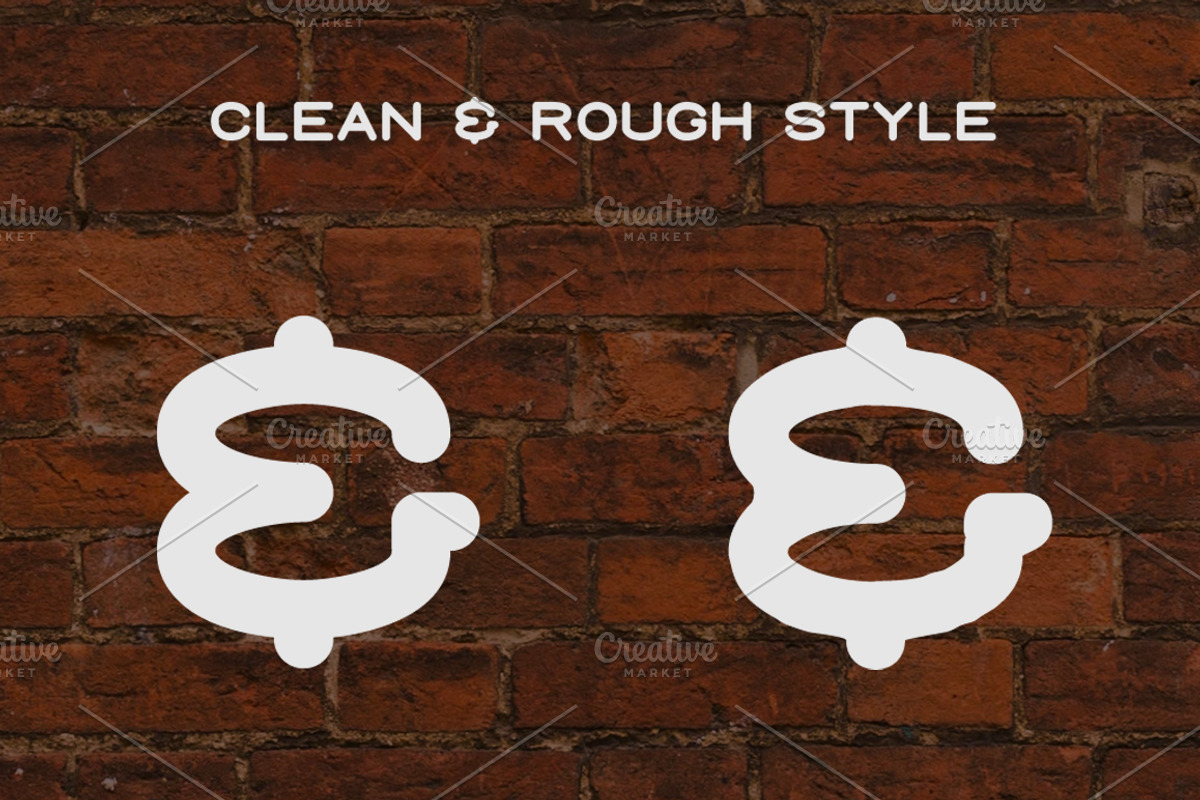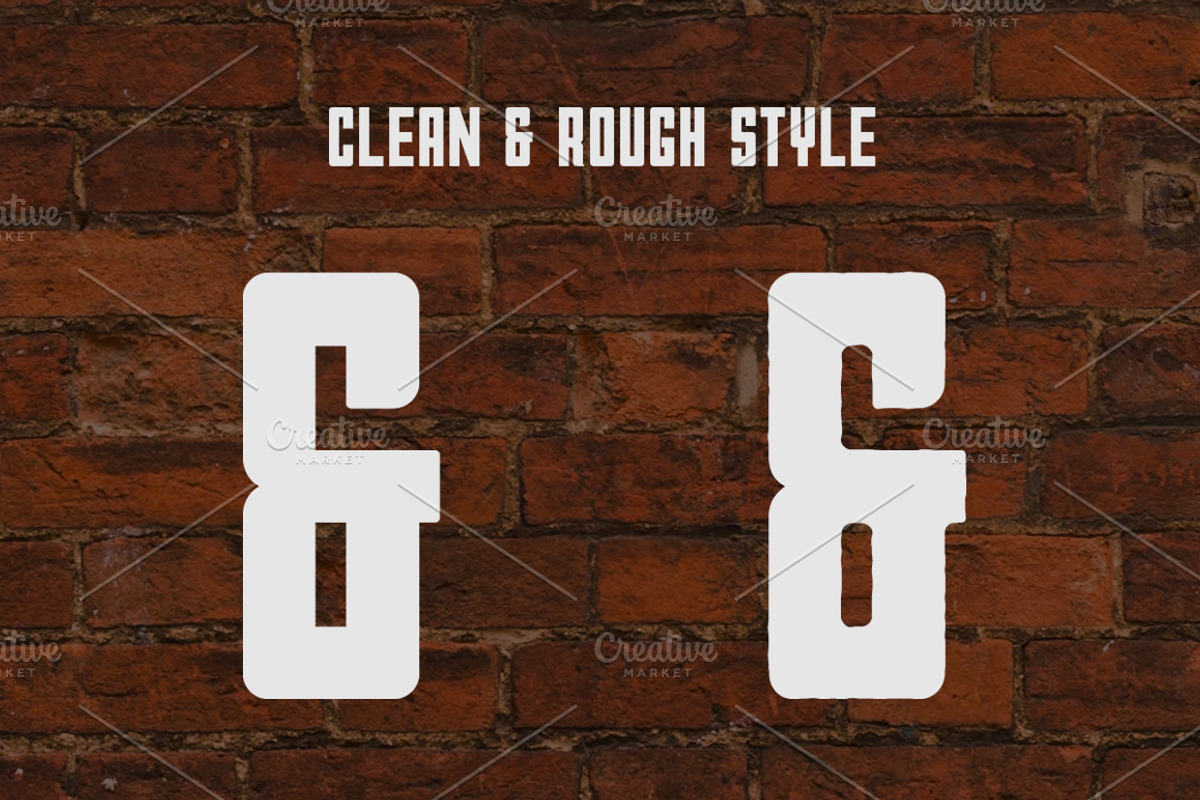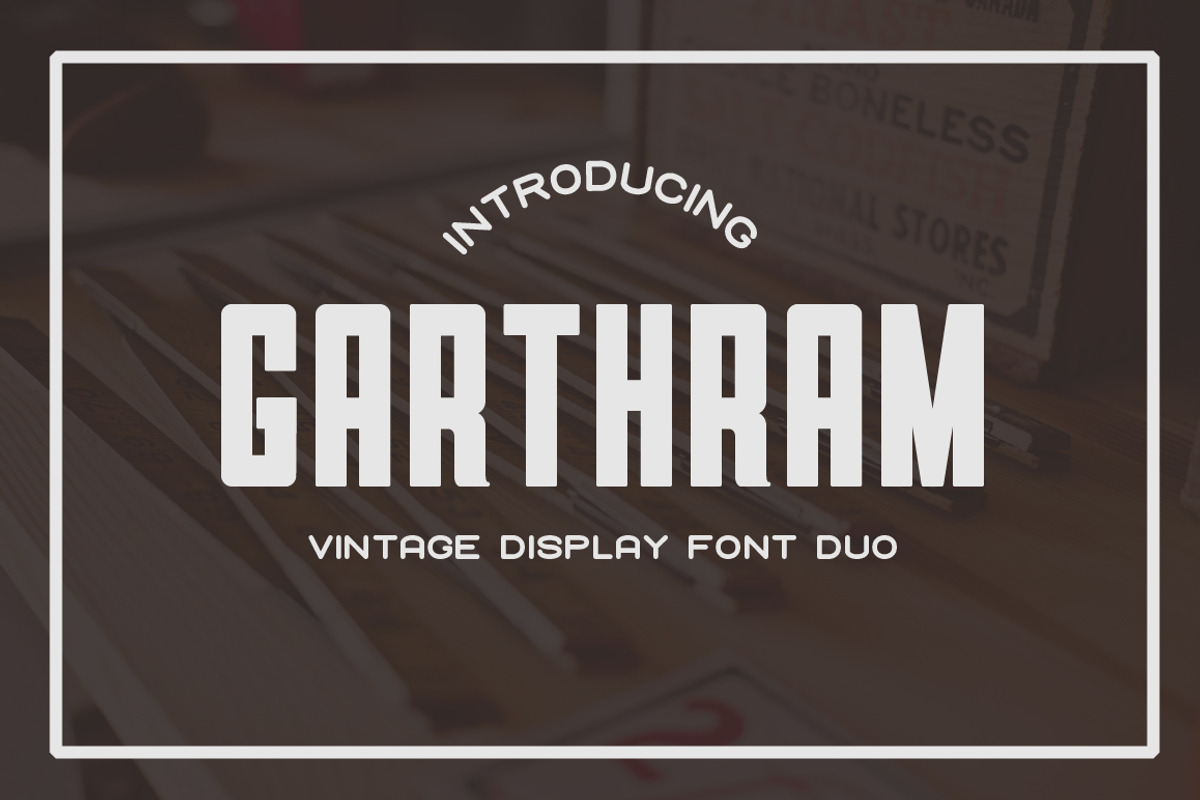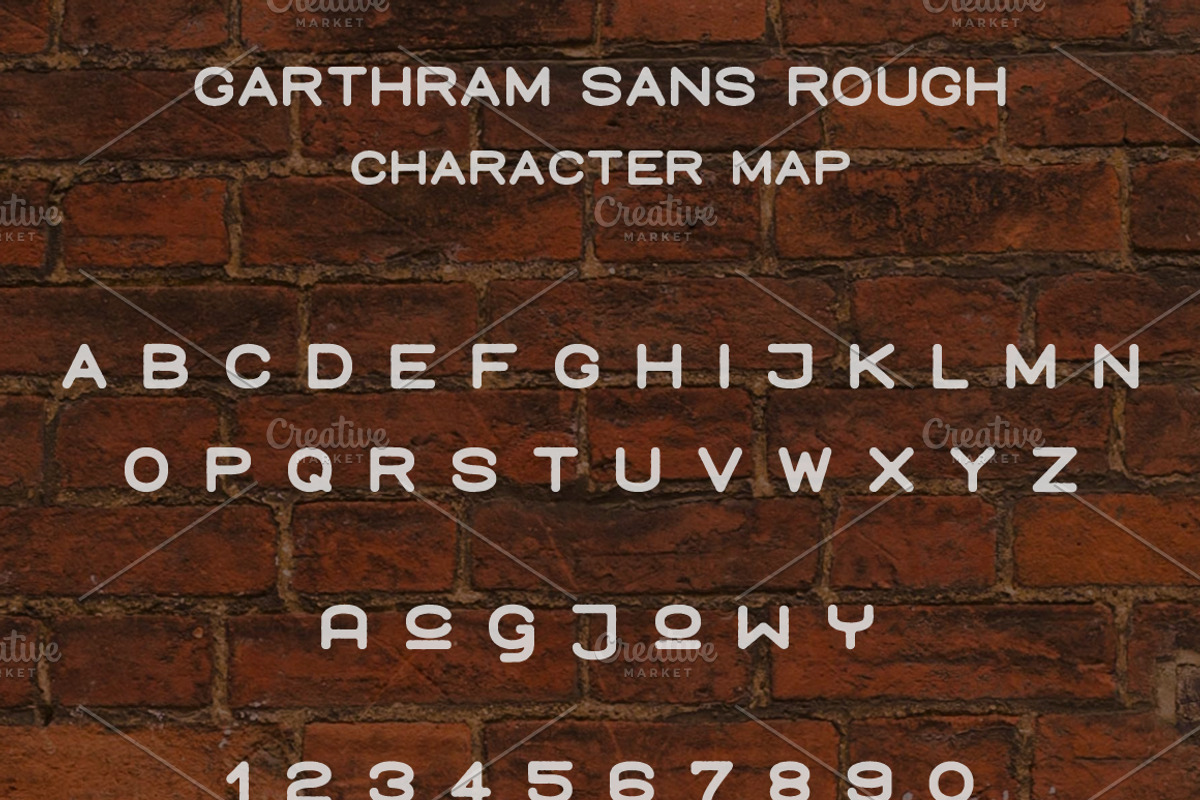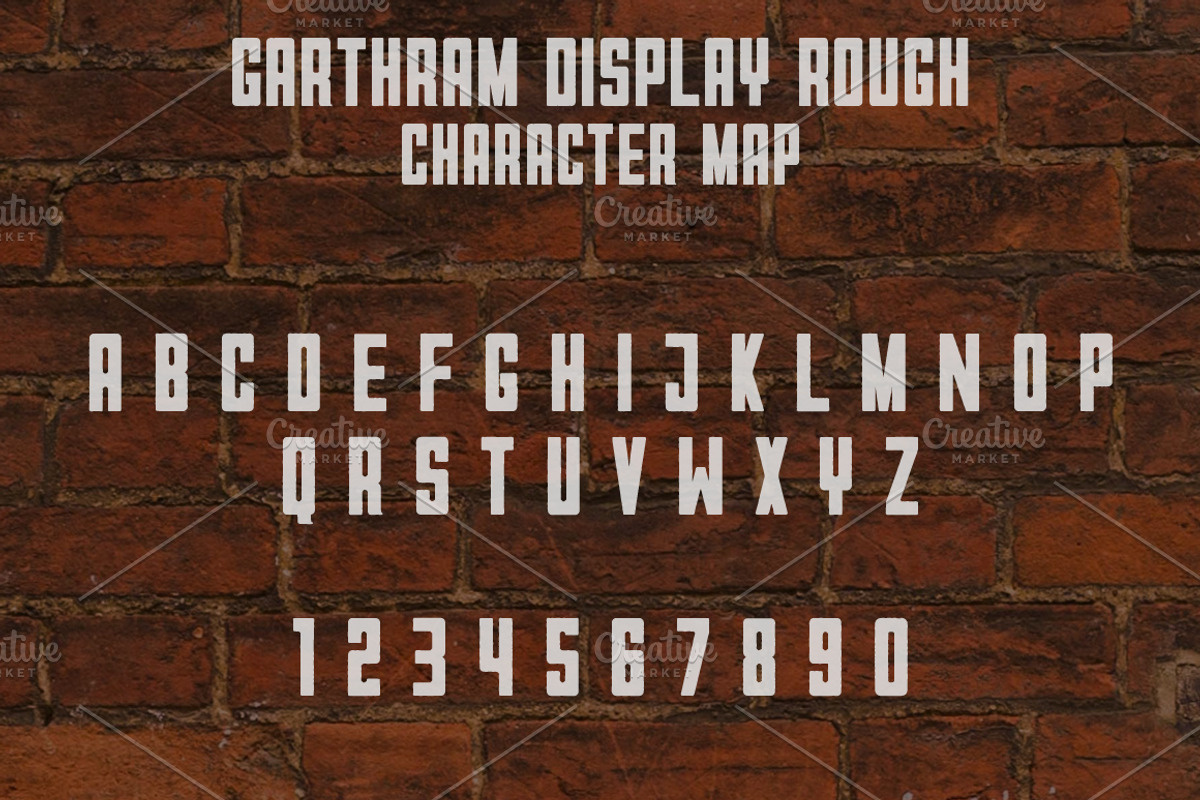
Garthram Font Duo
Garthram Font Duo by Bart Wesolek is a font selected for branding, posters, packaging, typography.
Why Garthram Font Duo is worth a look
Garthram Font Duo by Bart Wesolek fits naturally into Branding, posters, packaging, typography.